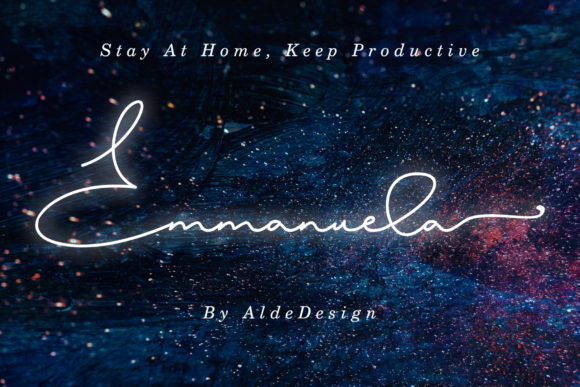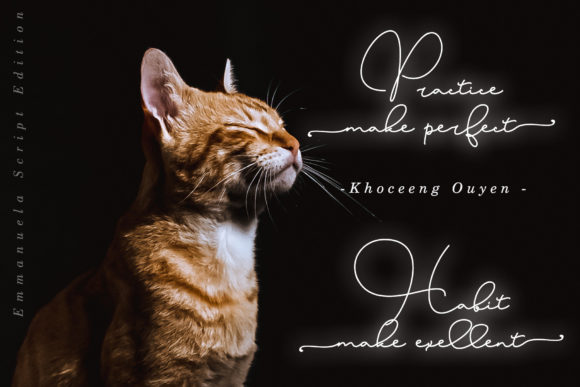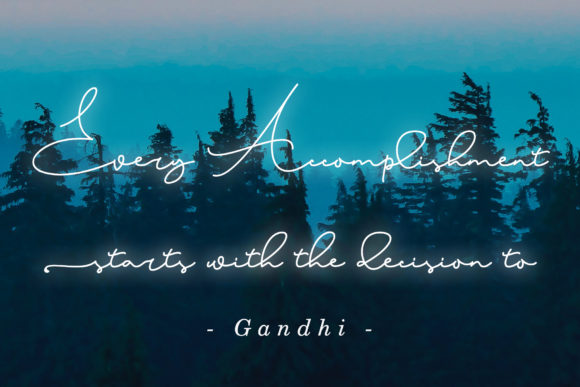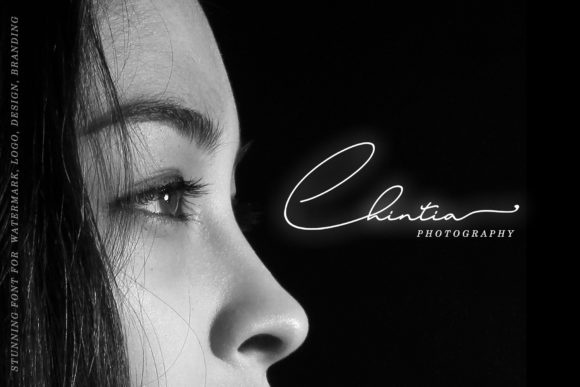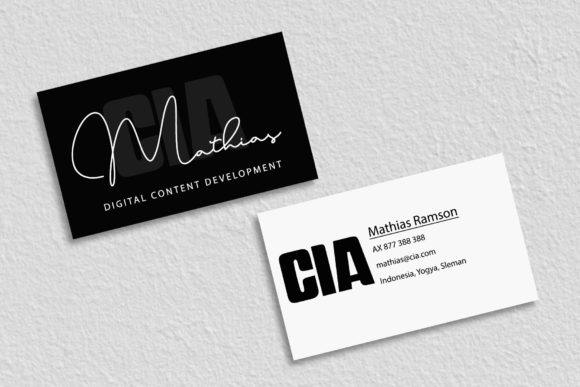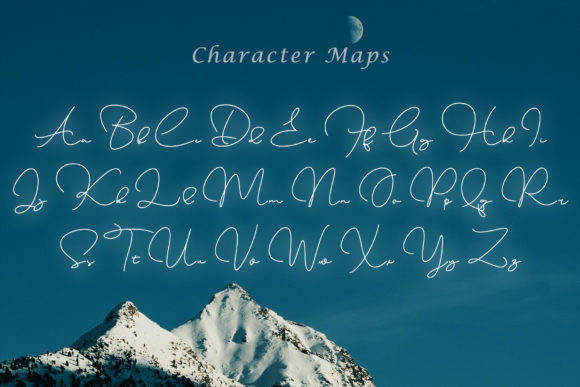
Emmanuela Font
About Emmanuela Font
Emmanuela is inspired by classic typography and brings its own unique style to any design project. Use this gorgeous and unique handwritten font to bring any DIY project to life!